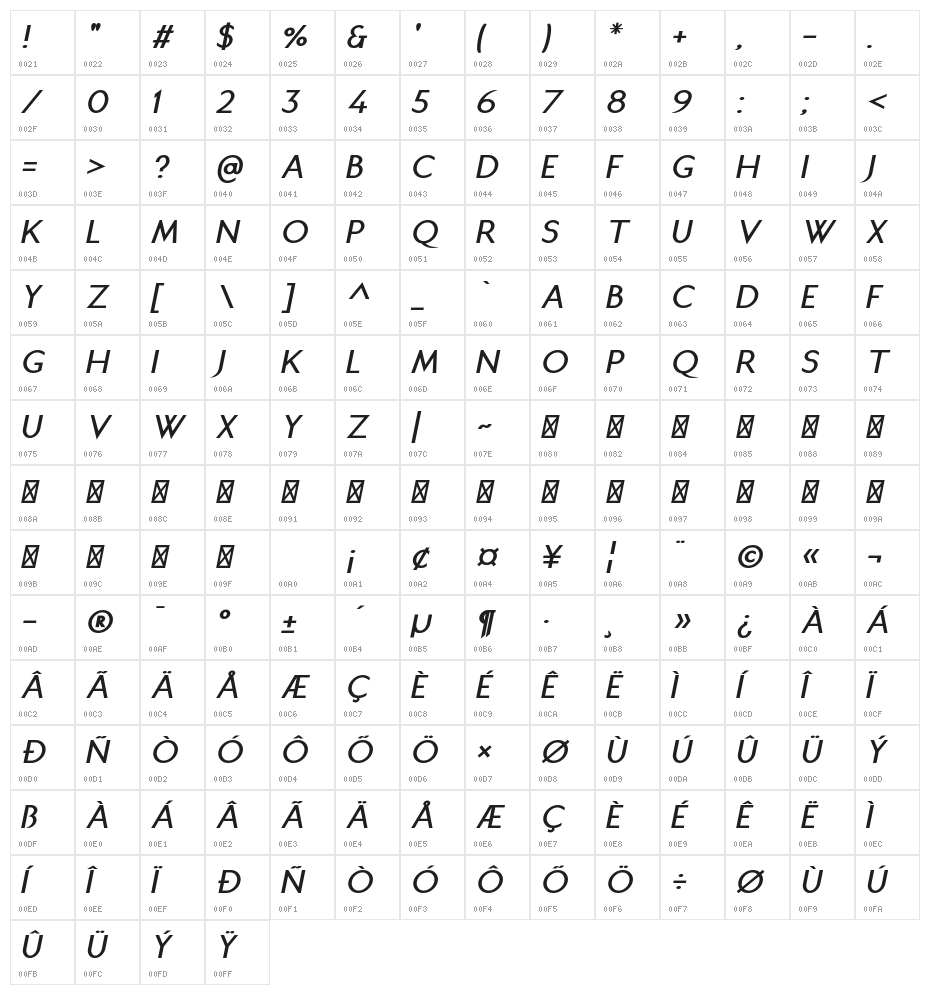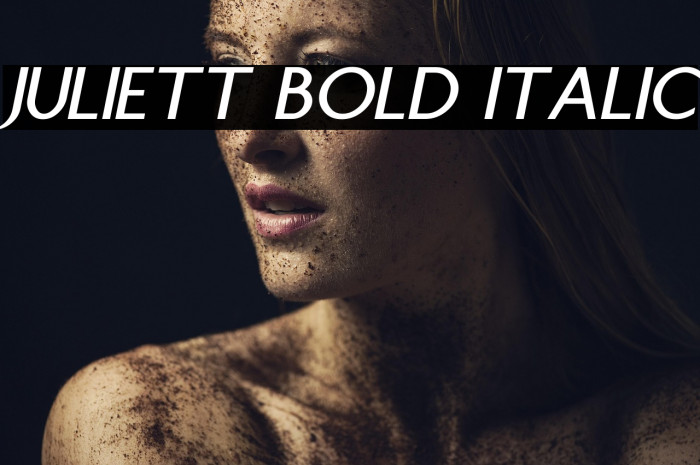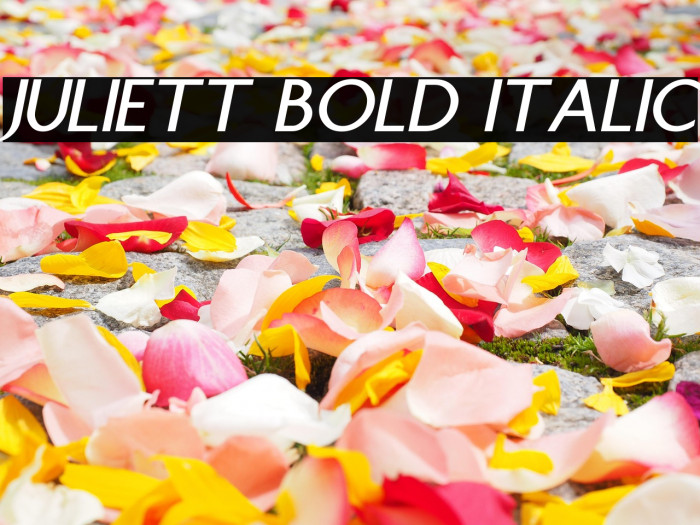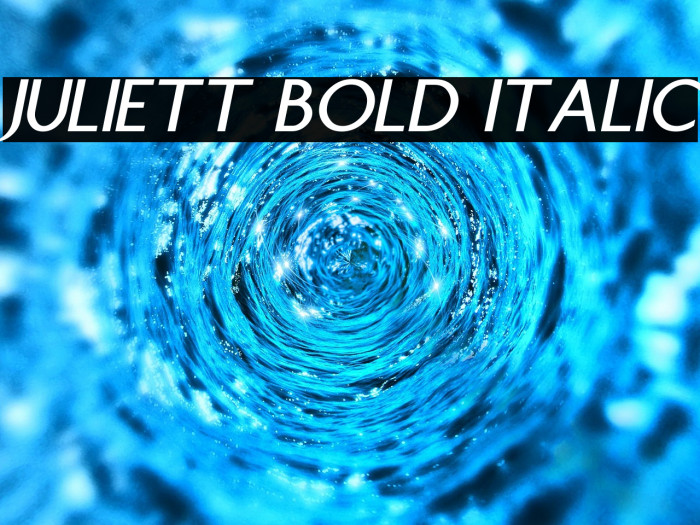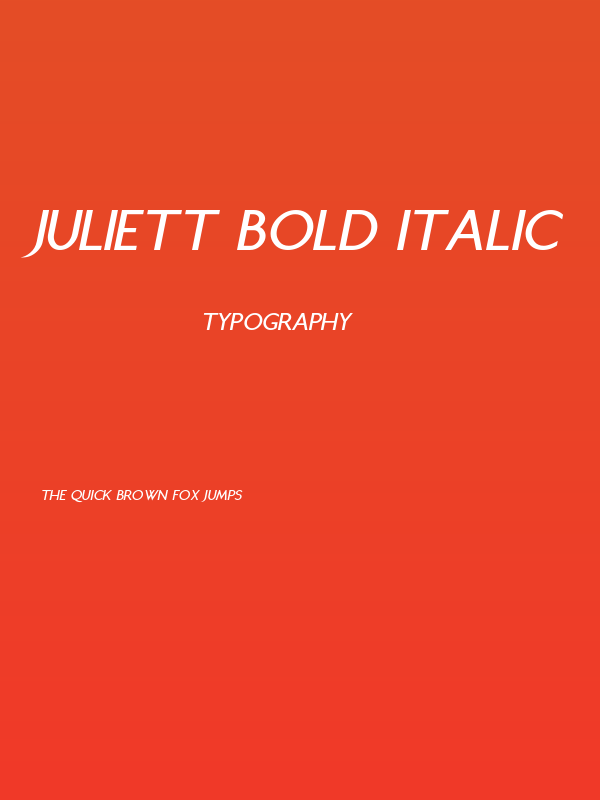
Juliett Bold Italic Font
Juliett Bold Italic Description
This font exhibits a dynamic and elegant style, characterized by its italicized form and bold weight. The letters are slanted, giving a sense of motion and sophistication. The strokes are smooth and consistent, with a moderate contrast between thick and thin lines. The characters are well-spaced, ensuring readability while maintaining a stylish appearance. The numerals and special characters follow the same italic and bold style, integrating seamlessly with the alphabet. This font is suitable for projects that require a touch of elegance and modernity.
| Proposed Projects | Ideal for branding, fashion magazines, elegant invitations, and modern advertising. |